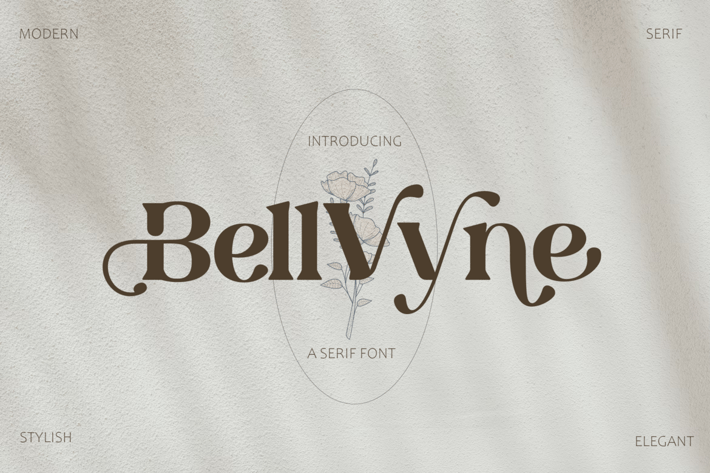
Serif Font
Looking for an elegant but unique serif font that looks equally great on screen as well as on paper?
Introducing Bellvyne- A Serif Font.
Stylish with a touch of modern, Bellvyne is perfect for making your brand stand out. It’s a great choice for web pages, apps, ads, banners, promotions, printed cards, packaging, and pretty much anything else your project needs.
Multilingual & Ligature Support
Full sets of Punctuation and Numerals